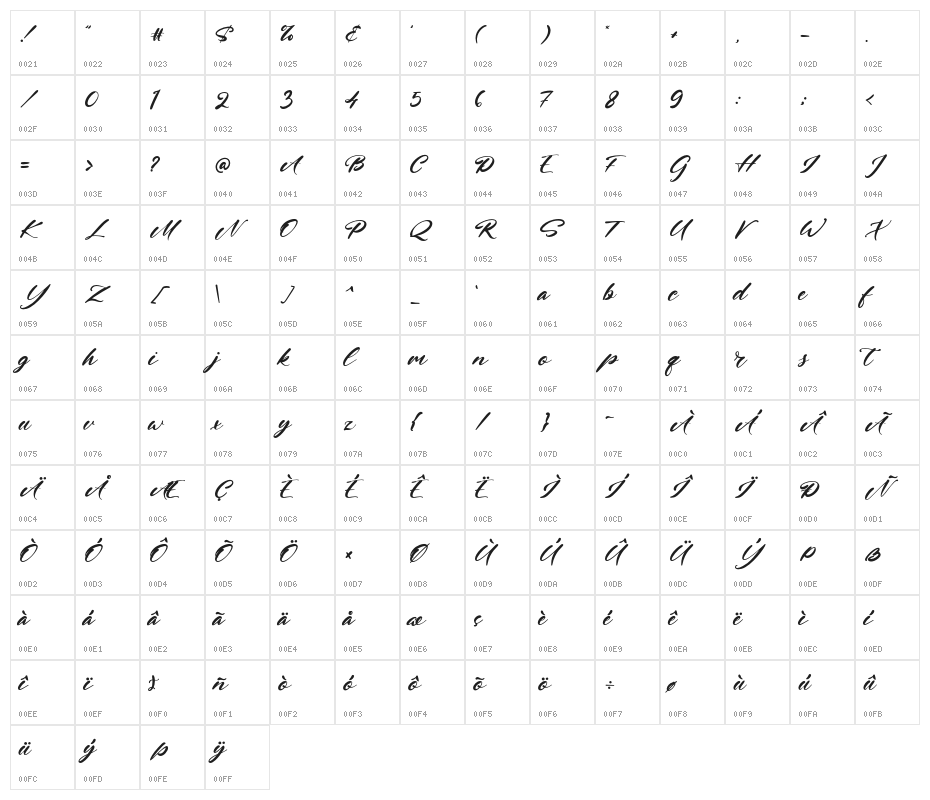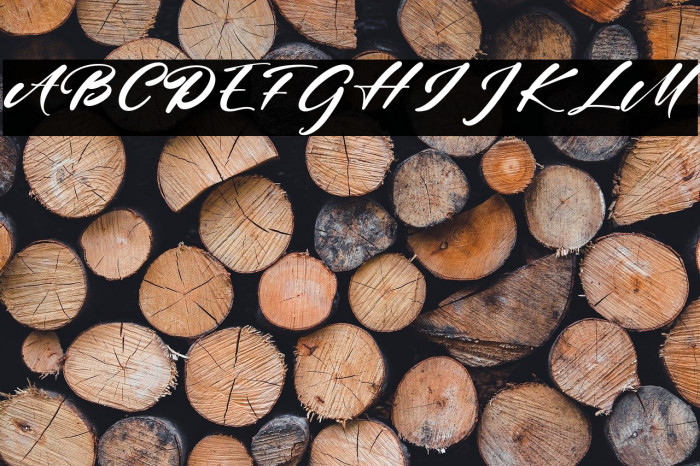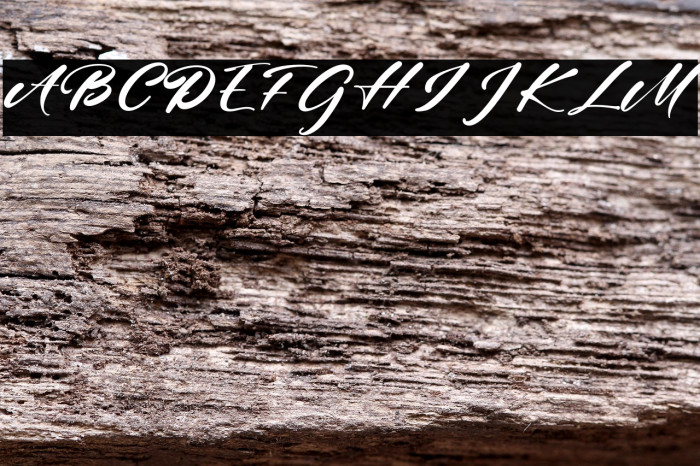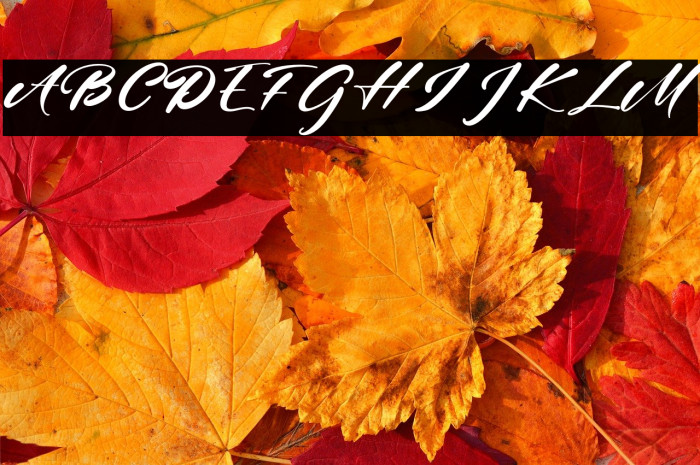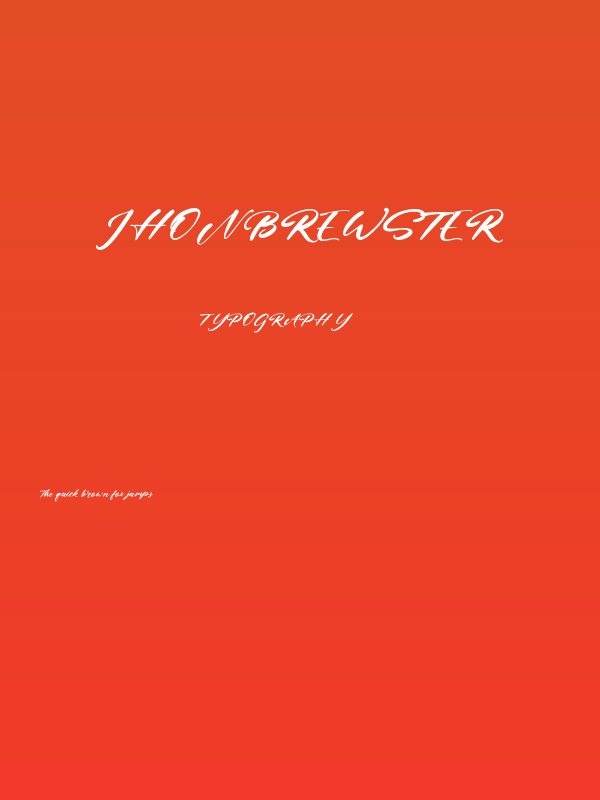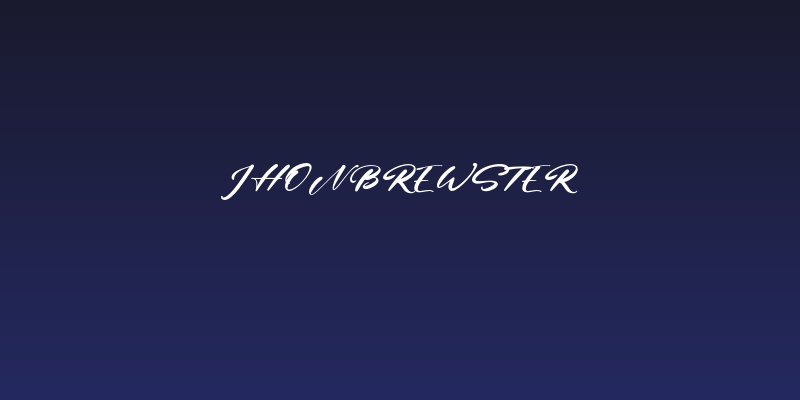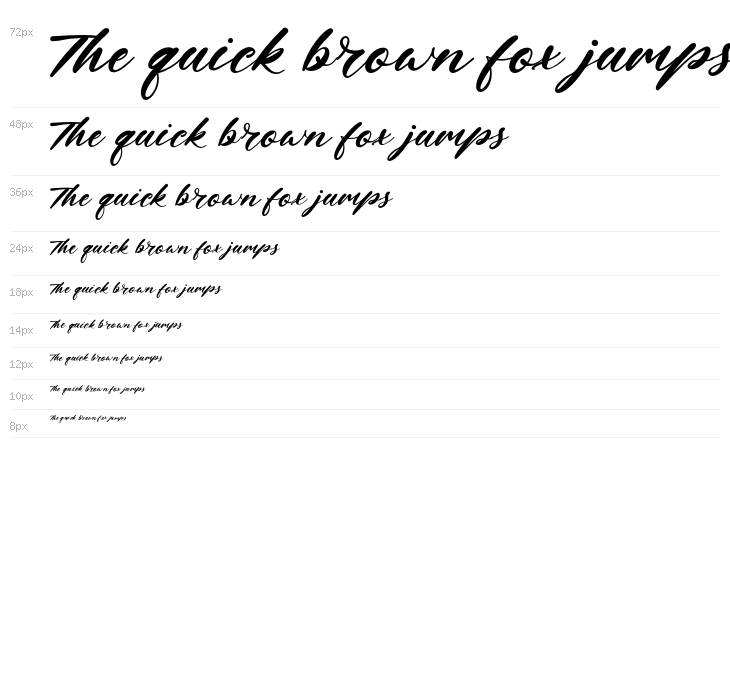
JhonBrewster Font
JhonBrewster Description
This font exudes a classic and elegant script style, characterized by its fluid and cursive letterforms. The uppercase letters are ornate with sweeping curves, while the lowercase letters maintain a consistent flow, enhancing readability. The numerals are stylishly integrated, matching the overall script aesthetic. Special characters are thoughtfully designed to complement the alphabet, maintaining the font's cohesive look. This font is ideal for projects that require a touch of sophistication and elegance, such as invitations, branding, and decorative text.
Overall StyleClassic
Use CaseLogos, Invitations, Decorative text
Proposed ProjectsIdeal for wedding invitations, branding, greeting cards, and decorative headings.